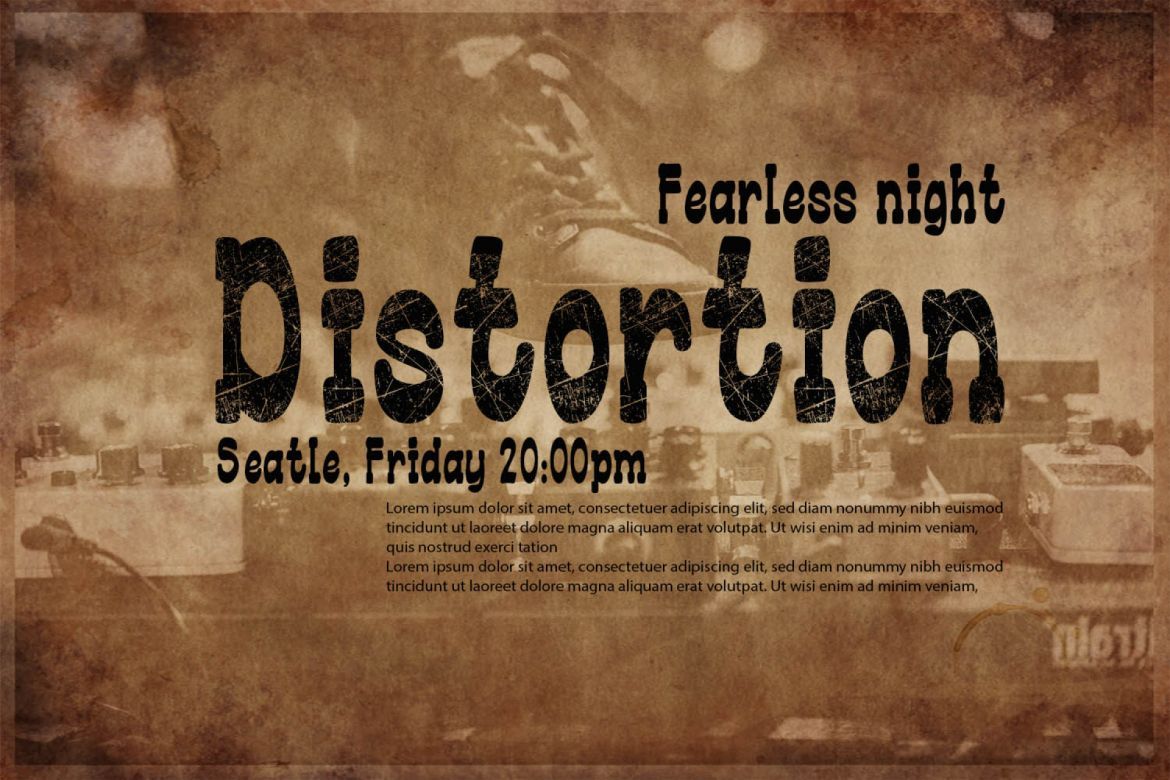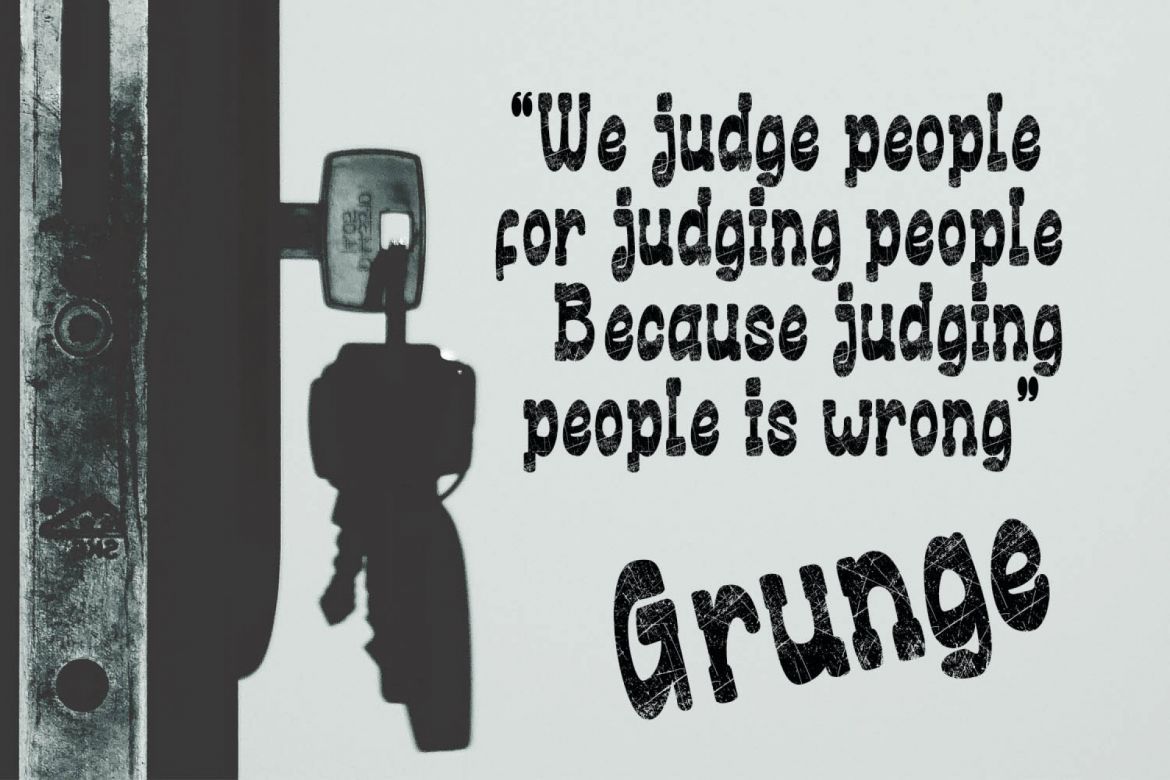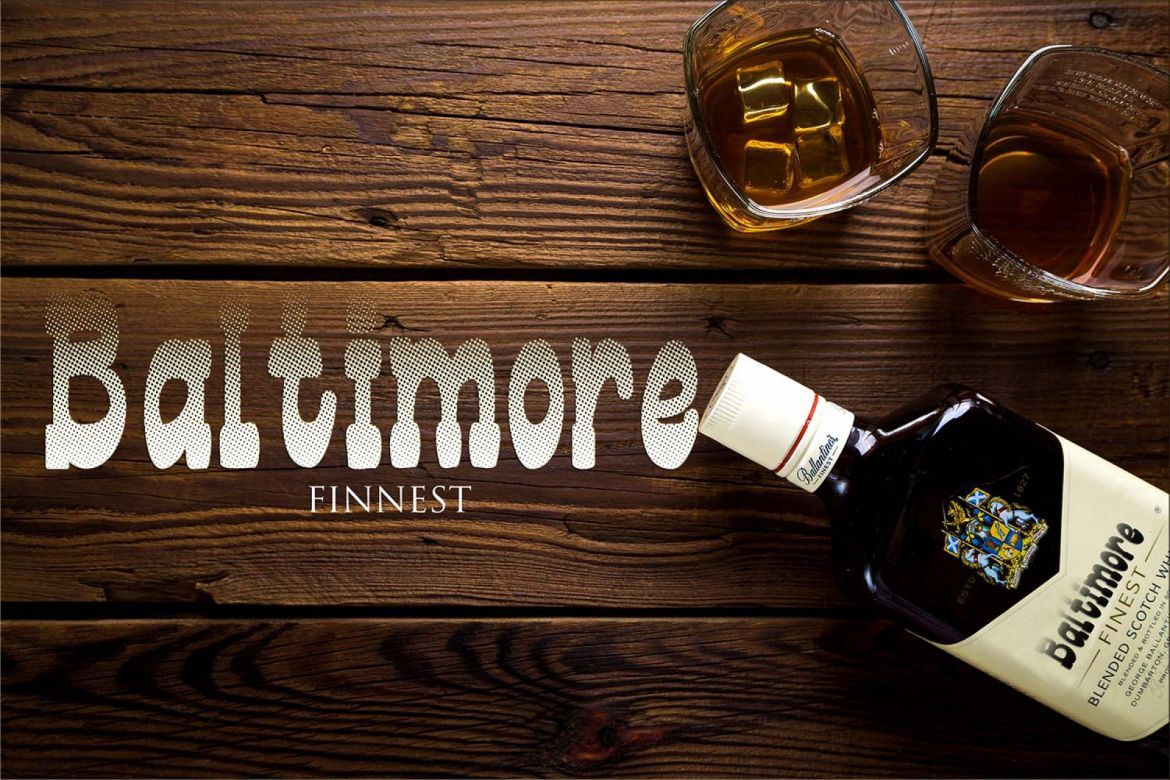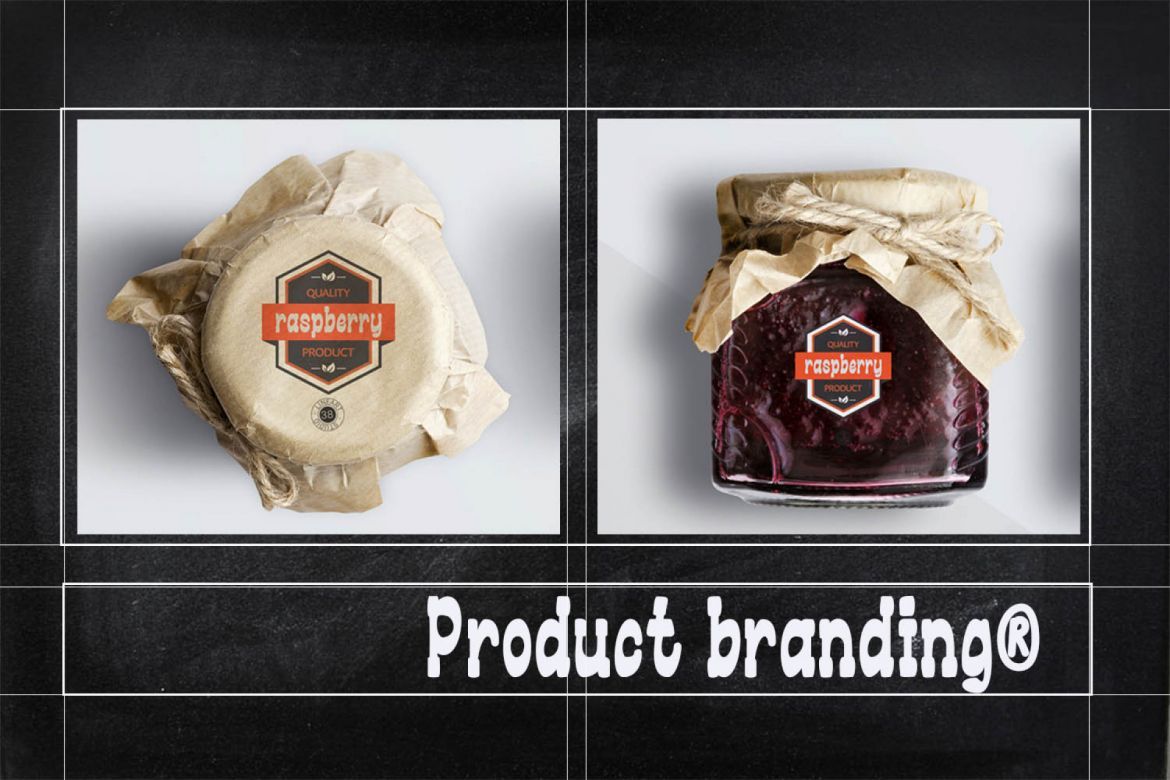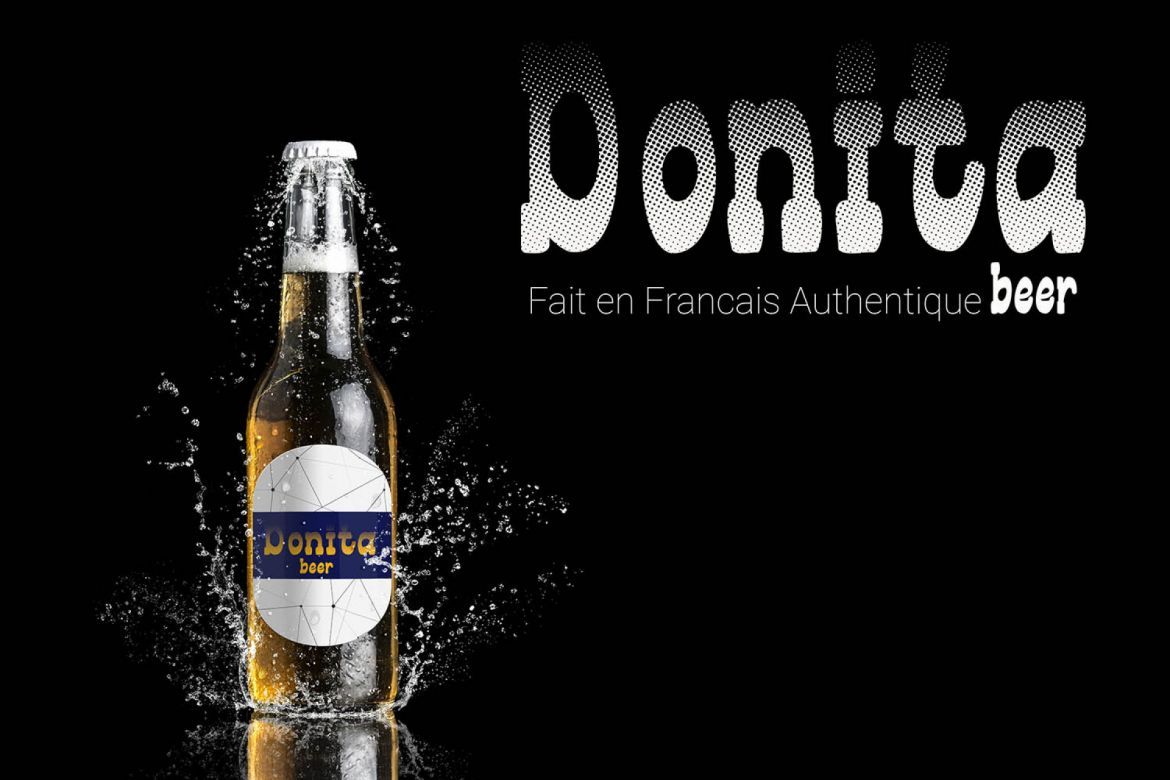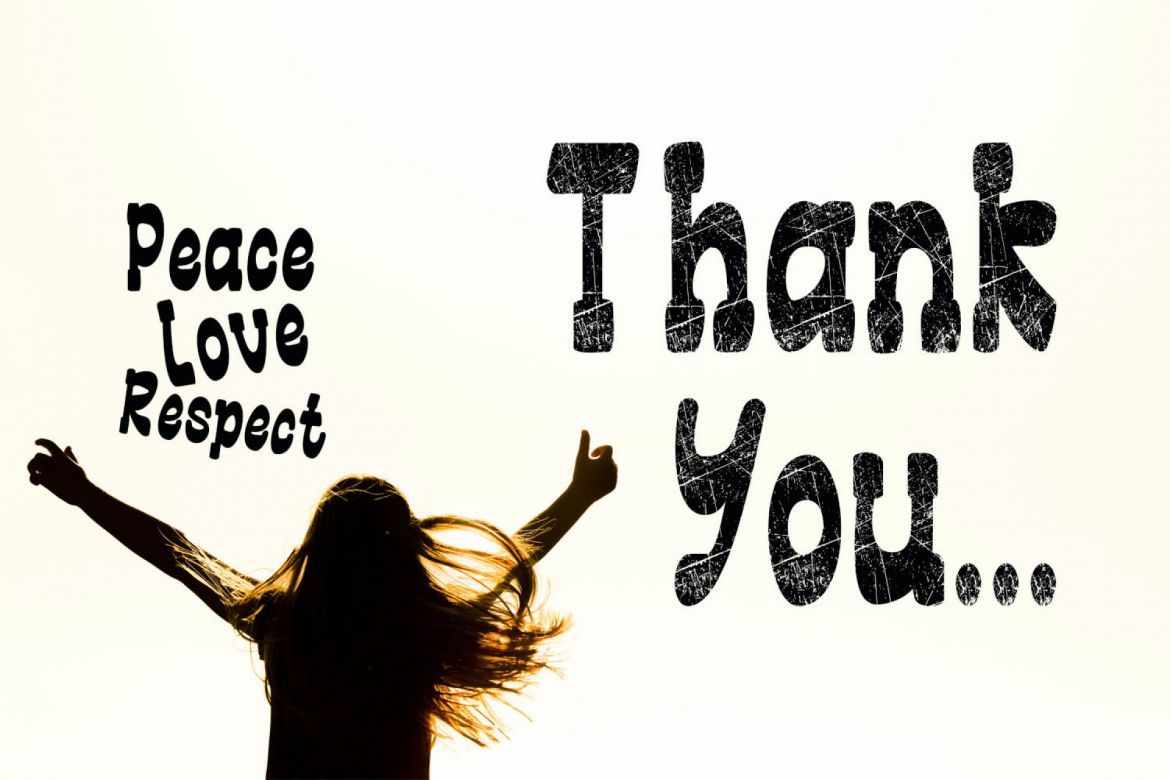
Bold Grunge Font
ntroduce "Bold Grunge". Grunge, dirty, and fancy typography stands apart from other font styles. we present three versions, namely, solid, halftone and rustic with exceptional value in terms of grunge font selection. Here you will find some grunge style typography that is highly thought out with a strong texture. Urban and old-fashioned, with a shabby, worn or stained look to complement the extraordinary grunge design. Think about your own unique approach in logo design, web or graphics with this versatile grunge font.
• halftone version
• rustic version
• solid version